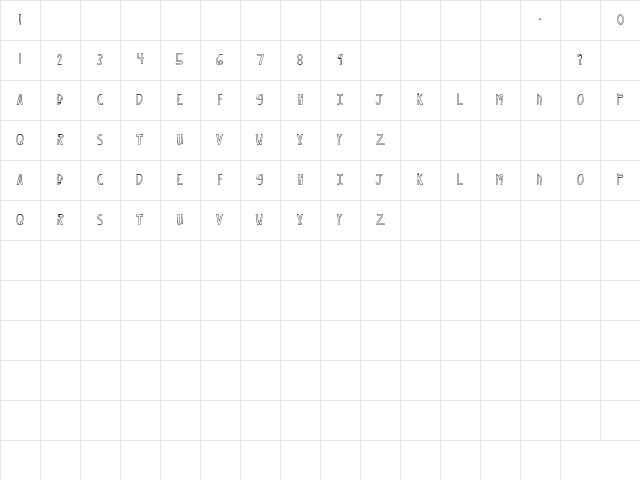
MTF XOXO Vo.2 Regular
Designer: Tina Raparanta a.k.a. MissTiina
Design Context for MTF XOXO Vo.2
MTF XOXO Vo.2 is a composed and adaptable typeface that performs quietly and consistently across a wide range of design contexts.